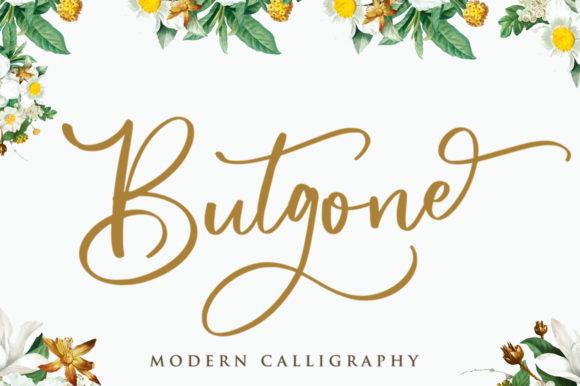
The Elusive Font: My Journey with Butgone
I still remember the design project that led me to discover Butgone. I was working on a branding project for a luxury candle company, and I was struggling to find the perfect font to match their elegant and sophisticated vibe. The client had a clear idea of what they wanted, but I was having a hard time finding a font that met their expectations. That’s when I stumbled upon Butgone, a delicate, elegant, and flowing handwritten font that seemed to bring their brand to life.
An Honest Review of Butgone
So, what makes Butgone so special? Here are a few things I love about this font:
- ✨ Elegant and flowing script: Butgone has a beautiful, cursive feel that’s perfect for luxury brands, wedding invitations, and other high-end designs.
- ✅ Well-balanced characters: The font has a great balance of thick and thin lines, making it easy to read and visually appealing.
- ✨ Versatile: Butgone matches a wide pool of designs, from modern and minimalist to vintage and ornate.
Of course, no font is perfect, and Butgone has a few small quirks:
- 🤔 Limited use of bold weights: While Butgone has a range of weights, the bold weights can be a bit overpowering. Use them sparingly to avoid overwhelming your design.
- ⚠️ Some letters may require manual kerning: As with any script font, some letters may need manual kerning to ensure they’re evenly spaced.
The Story Behind Butgone
Butgone was designed by a team of typographers who wanted to create a font that was both elegant and versatile. Inspired by classic calligraphy, they crafted a font that would bring a touch of sophistication to any design. Whether you’re working on a luxury brand or a wedding invitation, Butgone is the perfect choice.
| Font Name | Butgone Font |
| Author | vultype |
| What is Butgone? | Butgone is a delicate, elegant, and flowing handwritten font. |
| What can I use Butgone for? | Butgone is perfect for luxury brands, wedding invitations, and other high-end designs. |
| Is Butgone easy to read? | Yes, Butgone has well-balanced characters that make it easy to read. |